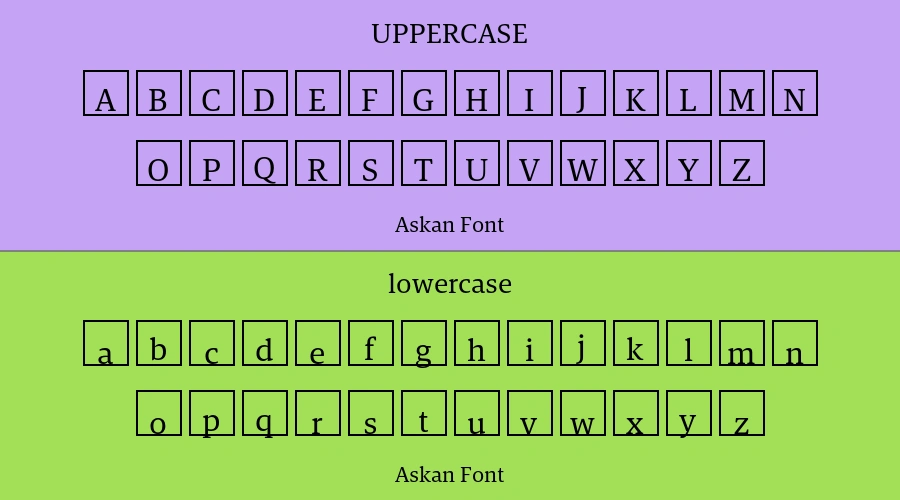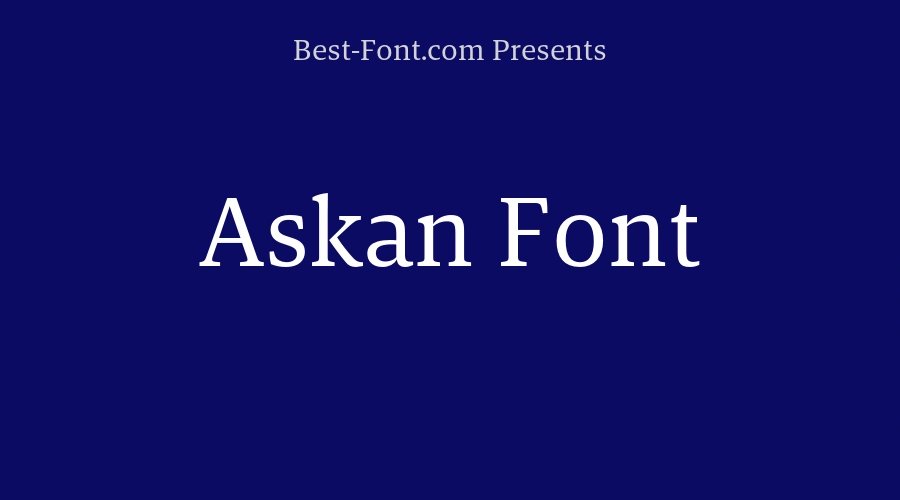
About Askan Font
When typographic excellence matters most, Askan Font delivers through its thoughtful blend of dramatic weight and technical precision. Specially crafted for scientific papers, it offers the versatility and consumer connection required for sophisticated design work. Every detail serves a purpose.
The character set showcases thoughtful details like elegant proportions alongside functional traditional styling. This proves especially valuable in specification sheets, where OCR compatibility directly influences results. Particular attention was paid to x-height proportion and regulatory compliance during development.